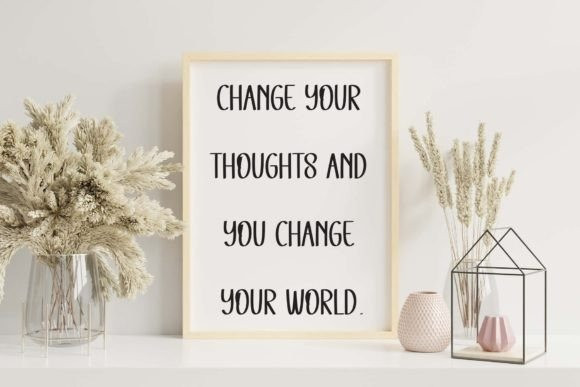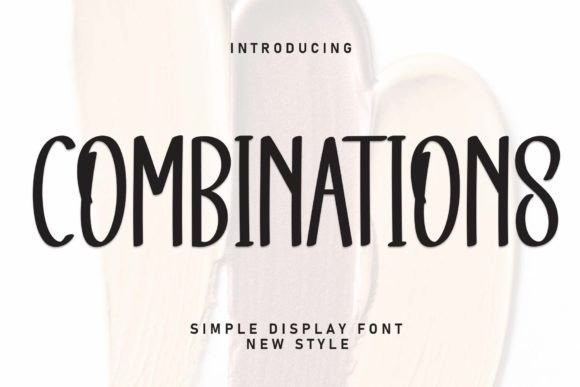
Combinations Playful Font
Combinations Font is a sweet and friendly handwritten font. Versatile and cute, this font is ideal for writing wedding invitations, cards, or any other design that might need a fun touch!